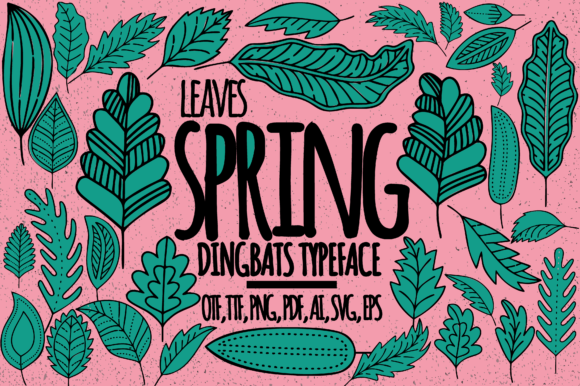
In the realm of typography, where elegance and creativity converge, allow us to introduce you to Spring Leaves Font, a dingbats typeface brimming with the essence of spring's charm. Crafted by the renowned Minimalistartstudio, this font is not merely a collection of letters and symbols; it is an artistic gateway to a world of flourishing greenery, delicate blossoms, and the enchanting aura of the season of renewal.
With Spring Leaves Font, you're bestowed with the power to conjure an array of hand-drawn spring leaves, effortlessly brought to life by the simple act of typing uppercase and lowercase letters, or even numbers. Watch in awe as your keyboard transforms into a canvas of nature's artistry, each keystroke evoking a unique leaf, meticulously rendered with intricate details that capture the very essence of springtime.
Whether you're a seasoned designer seeking to infuse your creations with the vibrancy of spring, or a casual user yearning to add a touch of natural beauty to your digital communications, Spring Leaves Font is your perfect companion. Its versatility extends far beyond mere text; it adorns social media posts, website designs, invitations, cards, and any other canvas you can imagine, with an aura of elegance and charm.
Imagine the allure of a wedding invitation adorned with delicate spring leaves, whispering tales of love and joy. Envision a business card that bursts forth with the energy of new beginnings, symbolized by the intricate details of a budding leaf. Unleash your creativity and let Spring Leaves Font guide you on a journey of artistic expression, where the boundaries of imagination are limitless.
This font isn't just a collection of characters; it's an experience. It's a way to bring the beauty of nature into your digital world, to add a touch of whimsy and charm to your everyday communications. So why settle for ordinary fonts when you can embrace the magic of Spring Leaves Font? Let your words bloom with the essence of spring, and watch as your creations come alive with the vibrant hues and delicate textures of nature's artistry.